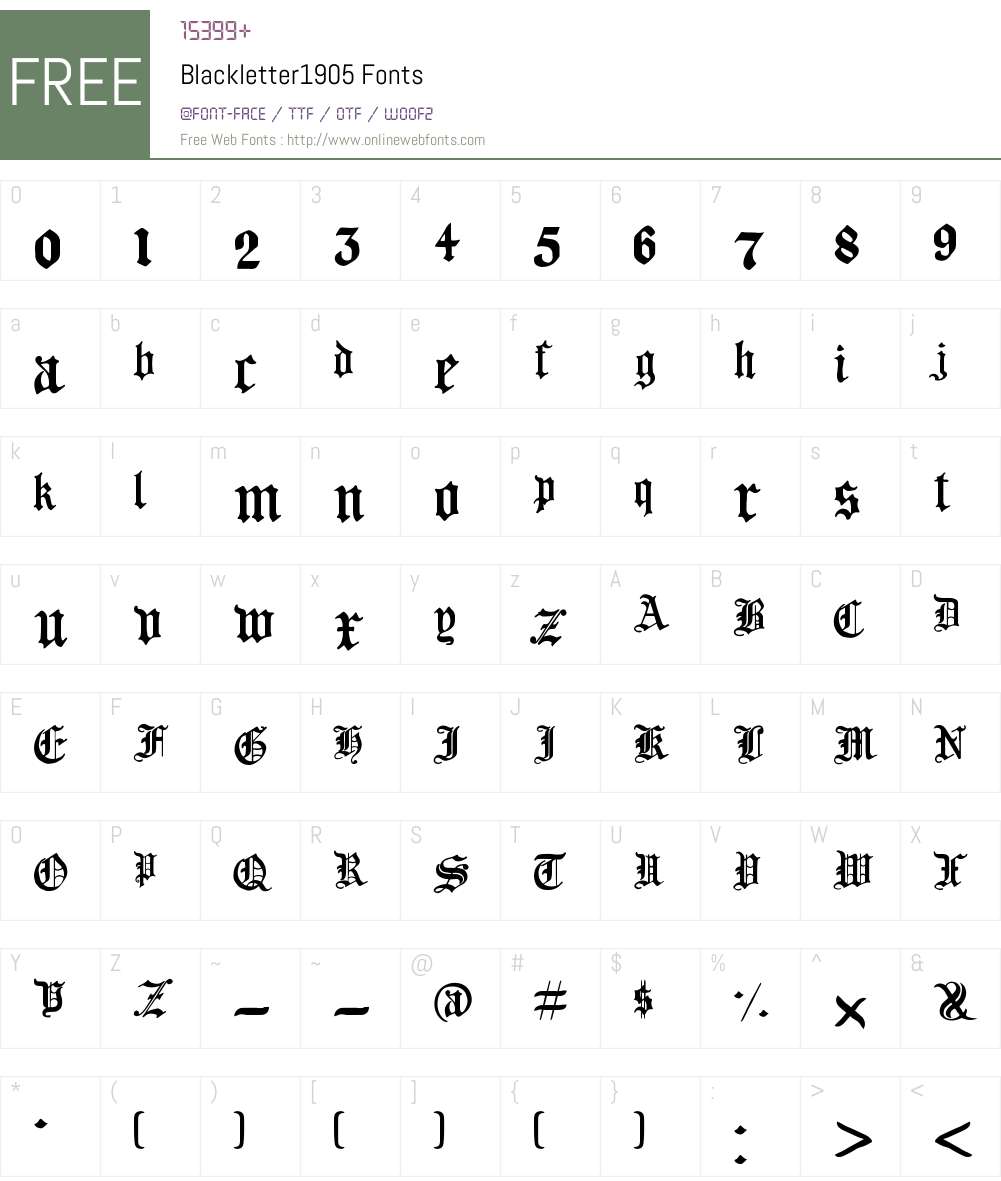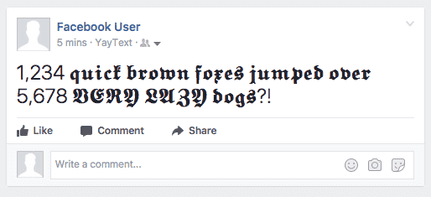
Fonts SVG PNG EPS DXF JPG AI Vector Qoutes File Blackletter Font Text Generator SVG. It is a western calligraphy style that was used in europe from 1100s to the 1600s. This unicode text tool generates fraktur style black letter text that can be copied into facebook and twitter messages, youtube comments, sms messages, etc. Various forms of blackletter exist, mainly including textualis, the most calligraphic form of blackletter; Download 10,000 fonts with one click for $19.95. The best selection of blackletter fonts for windows and macintosh. Please, take into account that this process may take some minutes, especially when generating models for large texts, complicated fonts and/or with base. Licensed for personal and commercial use. Blackletter fonts have letters that are very bold and ornate. We have 312 free blackletter fonts to offer for direct downloading · 1001 fonts is your favorite site for free fonts since 2001. Schwabacher, an old english form that was heavily used in the early german print typefaces; Blackletter, old english, or gothic text is a style of script used for european languages beginning in the 12th century. Discover and customize the font blackletter and other similar fonts, ready to share in facebook and twitter. The gothic text generator is an online tool to transform the normal text into a gothic text font. Fraktur, the most common german blackletter typeface. Just copy and paste or write your text into the below box and the font generator will convert your text into fraktur/ bold fraktur font that you can copy and paste on social media update, profile, comments or.
Gothic Blackletter Old English Unicode Text Ðð¯ðð¨ð±ð²ð¯ Ðð¬ð±ð¥ð¦ð . Just copy and paste or write your text into the below box and the font generator will convert your text into fraktur/ bold fraktur font that you can copy and paste on social media update, profile, comments or. Licensed for personal and commercial use. Blackletter fonts have letters that are very bold and ornate. We have 312 free blackletter fonts to offer for direct downloading · 1001 fonts is your favorite site for free fonts since 2001. Fraktur, the most common german blackletter typeface. It is a western calligraphy style that was used in europe from 1100s to the 1600s. Download 10,000 fonts with one click for $19.95. Various forms of blackletter exist, mainly including textualis, the most calligraphic form of blackletter; Please, take into account that this process may take some minutes, especially when generating models for large texts, complicated fonts and/or with base. This unicode text tool generates fraktur style black letter text that can be copied into facebook and twitter messages, youtube comments, sms messages, etc. Blackletter, old english, or gothic text is a style of script used for european languages beginning in the 12th century. The gothic text generator is an online tool to transform the normal text into a gothic text font. Schwabacher, an old english form that was heavily used in the early german print typefaces; The best selection of blackletter fonts for windows and macintosh. Discover and customize the font blackletter and other similar fonts, ready to share in facebook and twitter.
The lettering generator allows you to display any text in great fonts. Download 10,000 fonts with one click for $19.95. It is a western calligraphy style that was used in europe from 1100s to the 1600s. Various forms of blackletter exist, mainly including textualis, the most calligraphic form of blackletter; Schwabacher, an old english form that was heavily used in the early german print typefaces; We have 312 free blackletter fonts to offer for direct downloading · 1001 fonts is your favorite site for free fonts since 2001. Font generator, also known as text font generator, online font generator, free font generator, cool text generator, this generator can convert your text into cool fonts, these cool fonts are not real fonts, are completely different from the arial fonts on your computer.
Blackletter fonts often based upon calligraphic letters was used throughout europe from 12th to 20th century for text or literary works. Big text letters font generator write your text with big. Font generator, also known as text font generator, online font generator, free font generator, cool text generator, this generator can convert your text into cool fonts, these cool fonts are not real fonts, are completely different from the arial fonts on your computer. With fancy fonts and impress others. Beautiful dingbats' fancy font generator converts regular characters into mathematical fraktur is a form of blackletter or gothic script. Font generator & font changer is fun and handy, just copy these stylish beautiful design text and paste them anywhere such as in facebook, twitter, whatsapp, snapchat, instagram bio. You can use these fancy fonts in your facebook, instagram and twitter bio or. Votes, rated based on results identification. The best selection of blackletter fonts for windows and macintosh. This unicode text tool generates fraktur style black letter text that can be copied into facebook and twitter messages, youtube comments, sms messages, etc. Sometimes we just need a decent stylish text in 10 minutes, maybe a the next project's logo. Download free blackletter fonts for commercial and personal use. A traditional blackletter font with a modern twist that makes it great for adding a classic feel while still remaining casual. And when it comes to apple devices i will say that. I called it copy and paste. The gothic text generator is an online tool to transform the normal text into a gothic text font. The lettering generator allows you to display any text in great fonts. I will say that more than 90% of devices going to support all kinds of text fonts which is going to be generated on our site, within that 90% only some previous version of android device can create problems. Brush lettering fonts, monoline fonts, 3d fonts and much more. Create cool stylish text to copy and paste with our fancy font generator ( ˘ ³˘)💕💯 use it on instagram, facebook, whatsapp or wherever you like! Yes you can generate these stylish font names using a stylish text generator website and you can make stylish names for fb with different unique font styles by using a stylish text website. Just copy and paste or write your text into the below box and the font generator will convert your text into fraktur/ bold fraktur font that you can copy and paste on social media update, profile, comments or. It generates the fonts using a series of unicode symbols, which is what allows you to copy and paste them. 60 free calligraphy fonts and lettering fonts download. While there are already numerous similar websites. Download 10,000 fonts with one click for $19.95. Blackletter, old english, or gothic text is a style of script used for european languages beginning in the 12th century. Age calculator age calculation fancy text generator fancy text fancy letters fonts for instagram fonts for insta fonts for ig font changer lenny it's not just limited with simple text converter, this website can generate the dynamic type of fancy text like and it's going to add random symbols. We have 312 free blackletter fonts to offer for direct downloading · 1001 fonts is your favorite site for free fonts since 2001. Cool ascii text art generator, good for facebook comments, status, instagram bio, etc. Get help on forum and more.
Qawqf7r 332pmm. Various forms of blackletter exist, mainly including textualis, the most calligraphic form of blackletter; Licensed for personal and commercial use. Blackletter, old english, or gothic text is a style of script used for european languages beginning in the 12th century. Discover and customize the font blackletter and other similar fonts, ready to share in facebook and twitter. The gothic text generator is an online tool to transform the normal text into a gothic text font. Fraktur, the most common german blackletter typeface. The best selection of blackletter fonts for windows and macintosh. Blackletter fonts have letters that are very bold and ornate. This unicode text tool generates fraktur style black letter text that can be copied into facebook and twitter messages, youtube comments, sms messages, etc. Please, take into account that this process may take some minutes, especially when generating models for large texts, complicated fonts and/or with base. Schwabacher, an old english form that was heavily used in the early german print typefaces; Download 10,000 fonts with one click for $19.95. We have 312 free blackletter fonts to offer for direct downloading · 1001 fonts is your favorite site for free fonts since 2001. It is a western calligraphy style that was used in europe from 1100s to the 1600s. Just copy and paste or write your text into the below box and the font generator will convert your text into fraktur/ bold fraktur font that you can copy and paste on social media update, profile, comments or.
Blackletter Fonts Collection. It is a western calligraphy style that was used in europe from 1100s to the 1600s. We have 312 free blackletter fonts to offer for direct downloading · 1001 fonts is your favorite site for free fonts since 2001. Discover and customize the font blackletter and other similar fonts, ready to share in facebook and twitter. Download 10,000 fonts with one click for $19.95. Just copy and paste or write your text into the below box and the font generator will convert your text into fraktur/ bold fraktur font that you can copy and paste on social media update, profile, comments or. This unicode text tool generates fraktur style black letter text that can be copied into facebook and twitter messages, youtube comments, sms messages, etc. The gothic text generator is an online tool to transform the normal text into a gothic text font. The best selection of blackletter fonts for windows and macintosh. Licensed for personal and commercial use. Fraktur, the most common german blackletter typeface. Various forms of blackletter exist, mainly including textualis, the most calligraphic form of blackletter; Please, take into account that this process may take some minutes, especially when generating models for large texts, complicated fonts and/or with base. Blackletter, old english, or gothic text is a style of script used for european languages beginning in the 12th century. Blackletter fonts have letters that are very bold and ornate. Schwabacher, an old english form that was heavily used in the early german print typefaces;
Fraktur, the most common german blackletter typeface.
Gothic Text Generator Just Fontvilla. We have 312 free blackletter fonts to offer for direct downloading · 1001 fonts is your favorite site for free fonts since 2001. Download 10,000 fonts with one click for $19.95. This unicode text tool generates fraktur style black letter text that can be copied into facebook and twitter messages, youtube comments, sms messages, etc. It is a western calligraphy style that was used in europe from 1100s to the 1600s. Schwabacher, an old english form that was heavily used in the early german print typefaces; Blackletter, old english, or gothic text is a style of script used for european languages beginning in the 12th century. The best selection of blackletter fonts for windows and macintosh. The gothic text generator is an online tool to transform the normal text into a gothic text font. Licensed for personal and commercial use. Blackletter fonts have letters that are very bold and ornate. Please, take into account that this process may take some minutes, especially when generating models for large texts, complicated fonts and/or with base. Just copy and paste or write your text into the below box and the font generator will convert your text into fraktur/ bold fraktur font that you can copy and paste on social media update, profile, comments or. Discover and customize the font blackletter and other similar fonts, ready to share in facebook and twitter. Various forms of blackletter exist, mainly including textualis, the most calligraphic form of blackletter; Fraktur, the most common german blackletter typeface.
Big text letters font generator write your text with big.
Red Hat Font Free By Mckl Font Squirrel. This unicode text tool generates fraktur style black letter text that can be copied into facebook and twitter messages, youtube comments, sms messages, etc. Licensed for personal and commercial use. Download 10,000 fonts with one click for $19.95. Blackletter, old english, or gothic text is a style of script used for european languages beginning in the 12th century. It is a western calligraphy style that was used in europe from 1100s to the 1600s. The gothic text generator is an online tool to transform the normal text into a gothic text font. Schwabacher, an old english form that was heavily used in the early german print typefaces; Various forms of blackletter exist, mainly including textualis, the most calligraphic form of blackletter; The best selection of blackletter fonts for windows and macintosh. Discover and customize the font blackletter and other similar fonts, ready to share in facebook and twitter. Just copy and paste or write your text into the below box and the font generator will convert your text into fraktur/ bold fraktur font that you can copy and paste on social media update, profile, comments or. Blackletter fonts have letters that are very bold and ornate. Please, take into account that this process may take some minutes, especially when generating models for large texts, complicated fonts and/or with base. Fraktur, the most common german blackletter typeface. We have 312 free blackletter fonts to offer for direct downloading · 1001 fonts is your favorite site for free fonts since 2001.
Sometimes we just need a decent stylish text in 10 minutes, maybe a the next project's logo.
Classified. It is a western calligraphy style that was used in europe from 1100s to the 1600s. Please, take into account that this process may take some minutes, especially when generating models for large texts, complicated fonts and/or with base. The gothic text generator is an online tool to transform the normal text into a gothic text font. Various forms of blackletter exist, mainly including textualis, the most calligraphic form of blackletter; Licensed for personal and commercial use. Discover and customize the font blackletter and other similar fonts, ready to share in facebook and twitter. Schwabacher, an old english form that was heavily used in the early german print typefaces; Fraktur, the most common german blackletter typeface. Blackletter, old english, or gothic text is a style of script used for european languages beginning in the 12th century. We have 312 free blackletter fonts to offer for direct downloading · 1001 fonts is your favorite site for free fonts since 2001. Blackletter fonts have letters that are very bold and ornate. Download 10,000 fonts with one click for $19.95. The best selection of blackletter fonts for windows and macintosh. This unicode text tool generates fraktur style black letter text that can be copied into facebook and twitter messages, youtube comments, sms messages, etc. Just copy and paste or write your text into the below box and the font generator will convert your text into fraktur/ bold fraktur font that you can copy and paste on social media update, profile, comments or.
Free generator of cool text logos with different font effects and styles, create an inscription for a banner, ads, video preview in hd quality. Compatibility of this text generator website. While there are already numerous similar websites. It generates the fonts using a series of unicode symbols, which is what allows you to copy and paste them. Customize your old english letter text with our generator below, and download or print your custom old english letters instantly. Please, take into account that this process may take some minutes, especially when generating models for large texts, complicated fonts and/or with base. I called it copy and paste. Fraktur, the most common german blackletter typeface. A traditional blackletter font with a modern twist that makes it great for adding a classic feel while still remaining casual. Schwabacher, an old english form that was heavily used in the early german print typefaces;